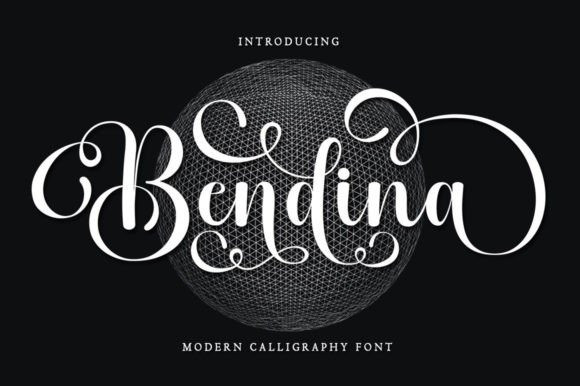
Bendina Font
Bendina Calligraphy Font is a very cute, elegant and unique handwritten font. Expertly designed to be a true favourite, this font has the potential to take your creative ideas to the highest level!
Bendina is attractive because it is sleek, clean, feminine, sensual, glamorous, simple and very easy to read, thanks to its many fancy letter connections. I also offer a decent number of style alternatives for all letters. The classic style is very suitable to be applied in various formal forms such as invitations, labels, restaurant menus, logos, fashion, make up, stationery, novels, magazines, books, greeting/wedding cards, packaging, labels or all kinds of advertisements . for your purposes. . . . . . .